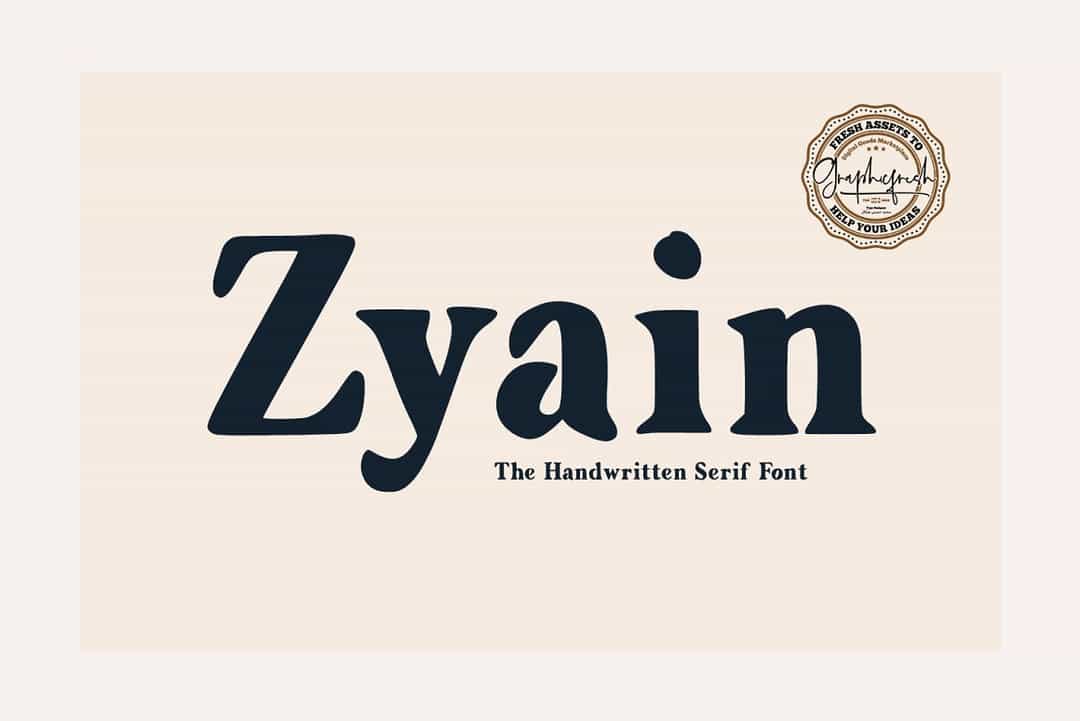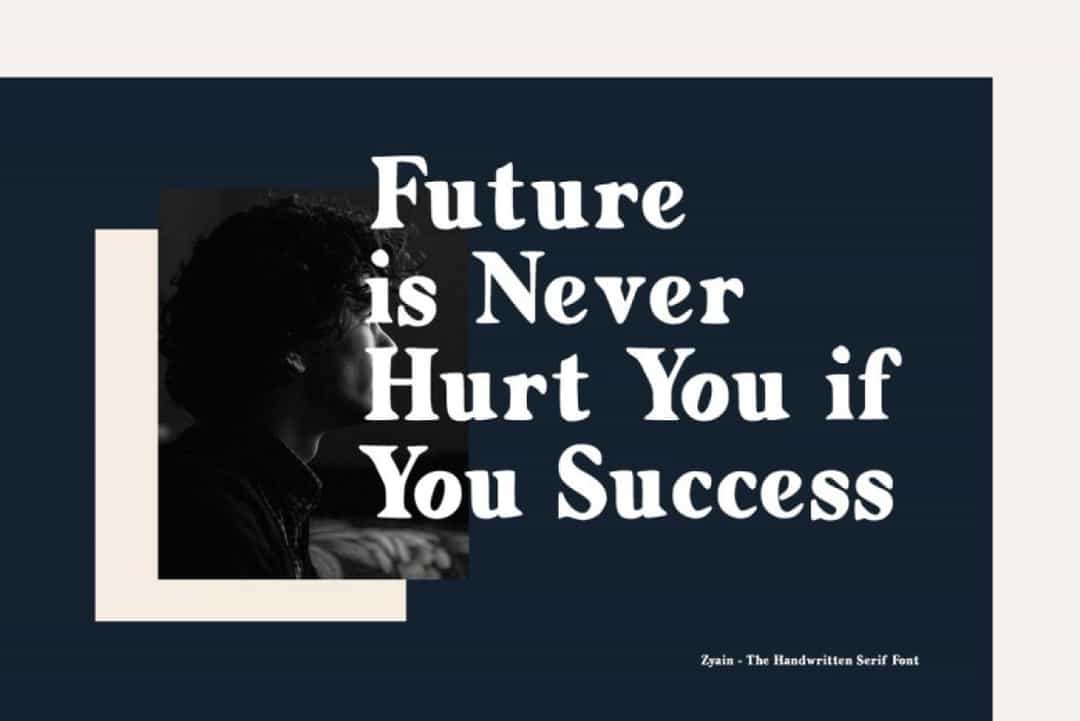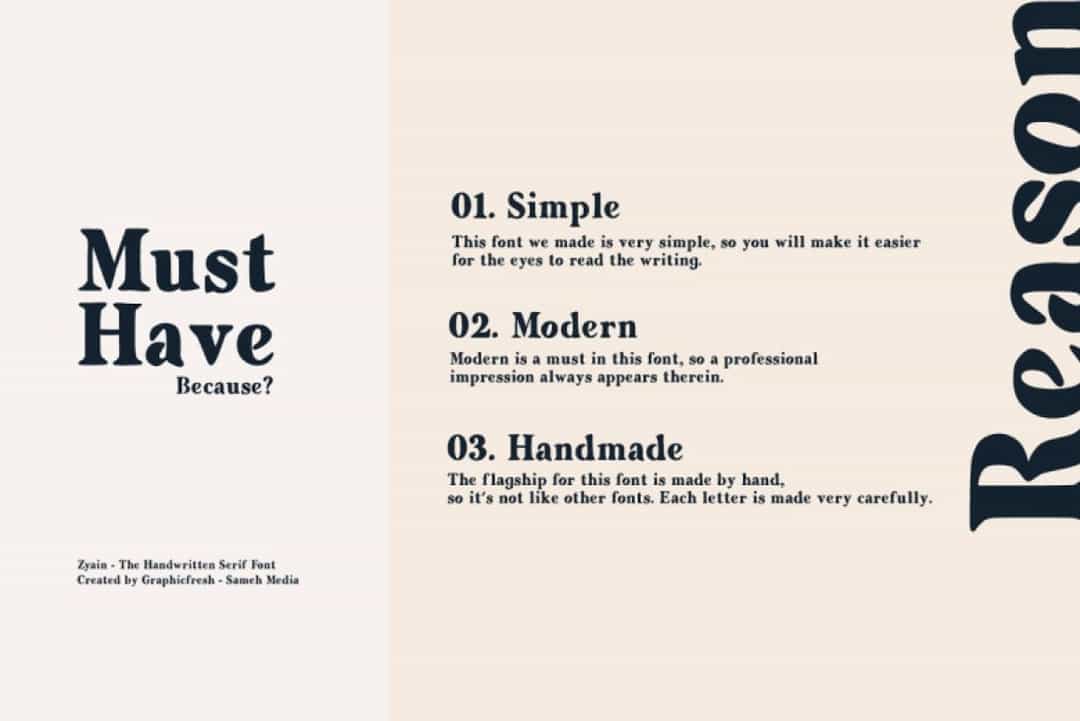
Zyain is a handwritten serif font featuring an eye-catching combination of sophisticated feminine elegance and adorable style that’s sure to add flair and personality to any design project. Perfect for wedding invitations, branding magazines, mugs, business cards posters quotes & much more – try Zyain today!